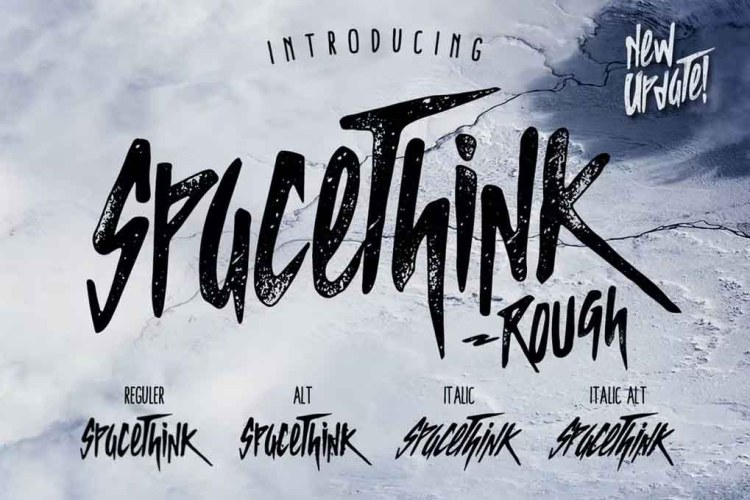
Spacethink Typeface Font
NEW UPDATE – SPACETHINK ROUGH • SPACETHINK Typeface Family.
Have 5 types of style options that can make it easier to convey the message in your design.
Use for awesome display, labeling, clothing, movie sceen, party poster, movie title, gigs, album covers, logos, and much more.
Spacethink Typeface Font is a Decorative Fonts font that brings a professional and versatile look to your projects. NEW UPDATE – SPACETHINK ROUGH • SPACETHINK Typeface Family.